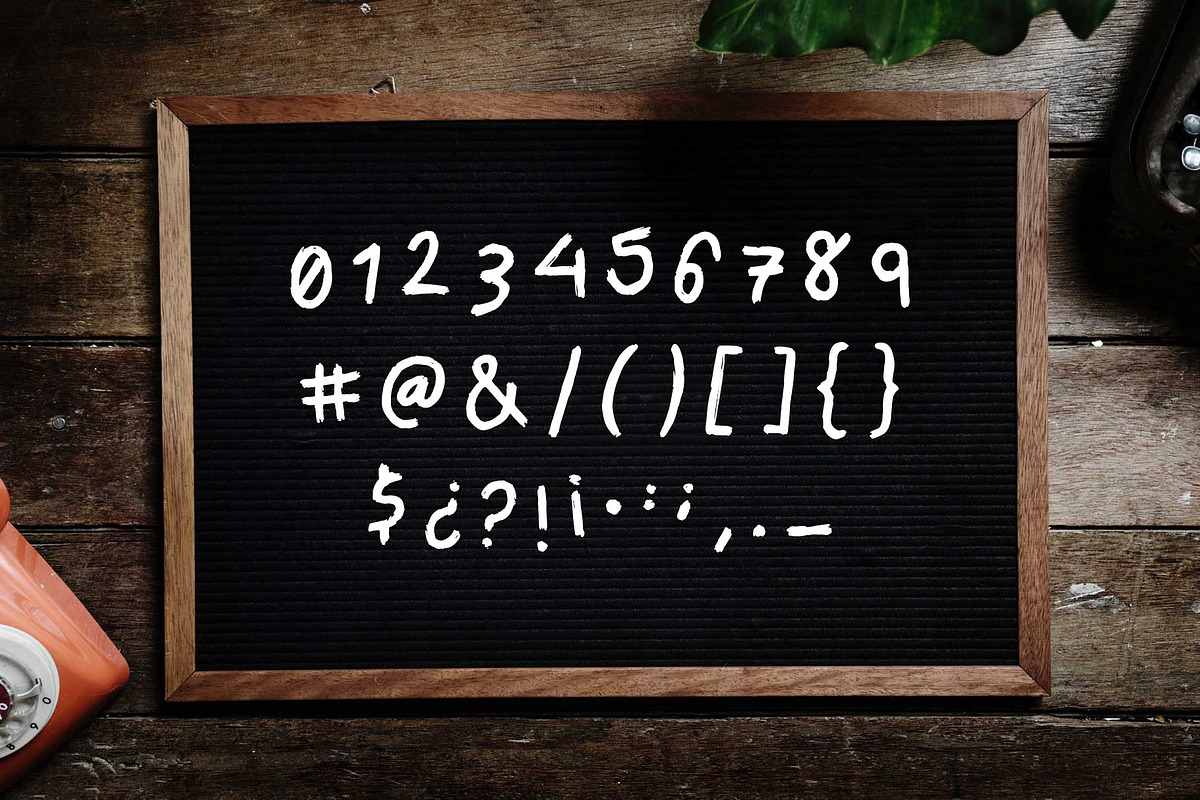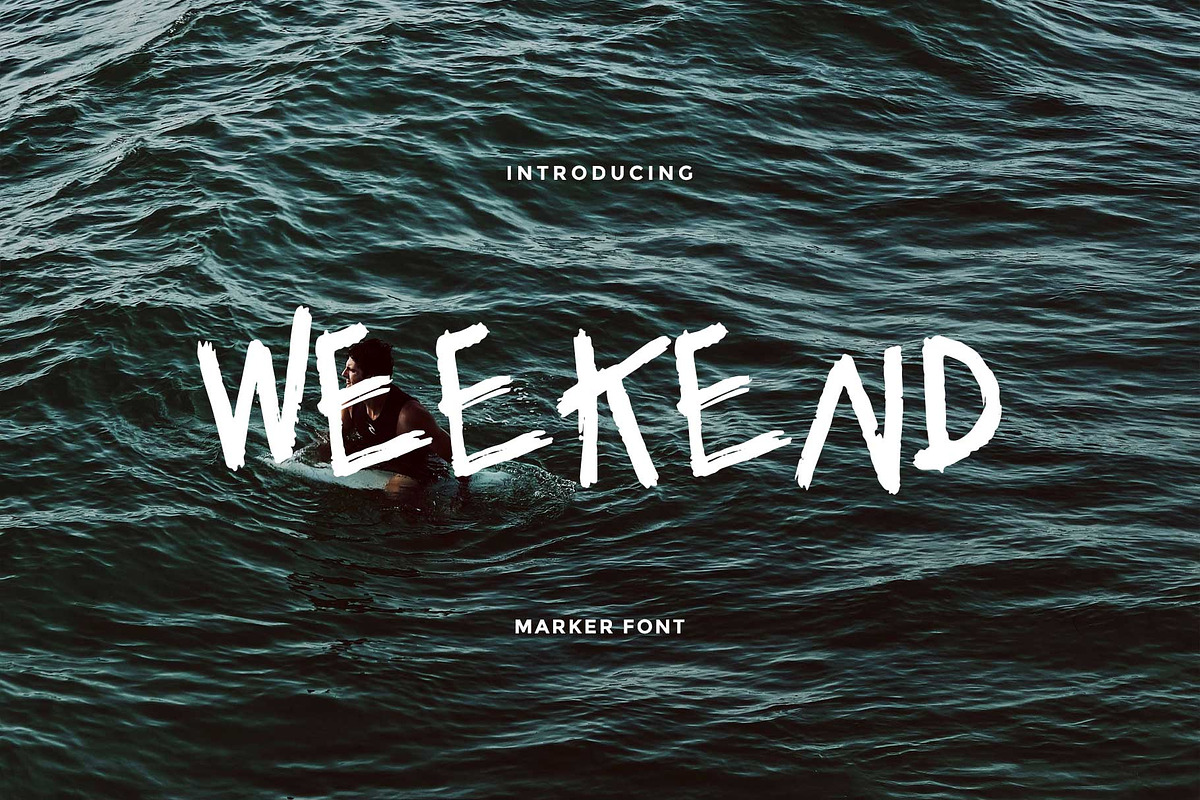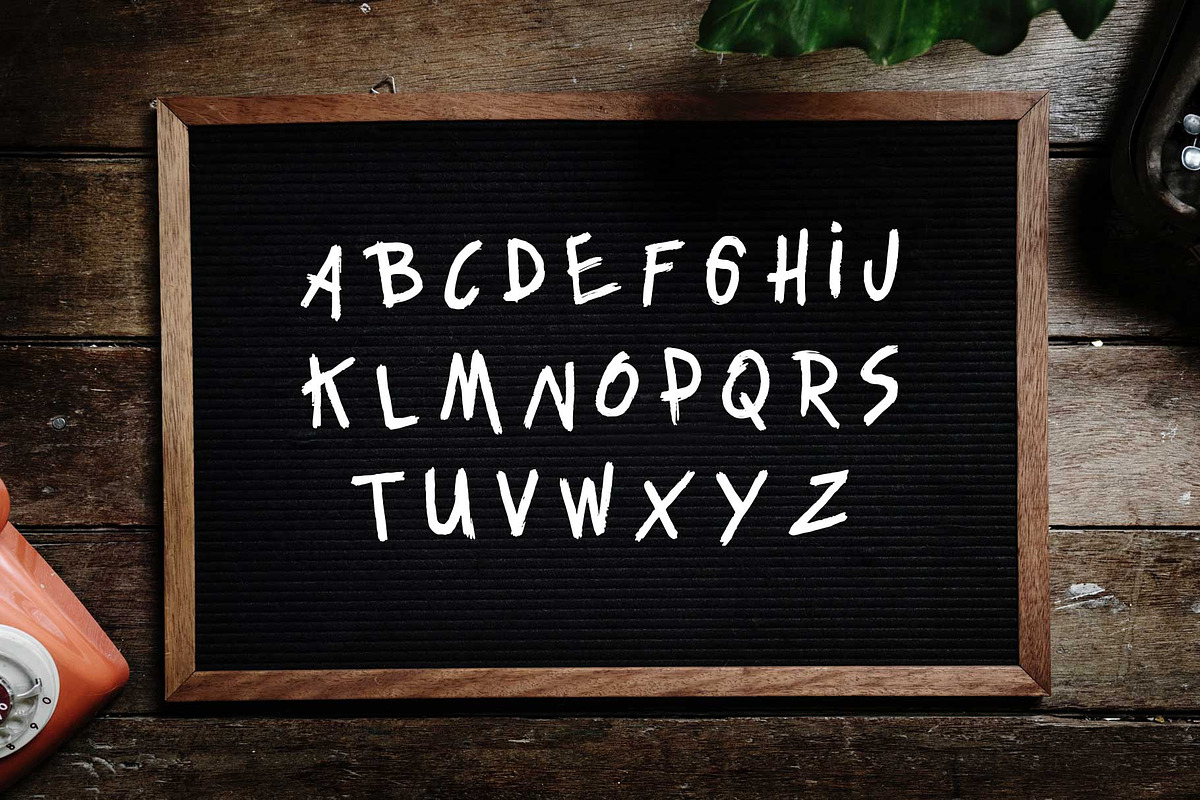
Weekend — Font
Weekend — Uppercase Font 🎩
Why Weekend — Font is worth a look
Weekend — Font by Noe Araujo fits naturally into Branding, posters, packaging, typography.